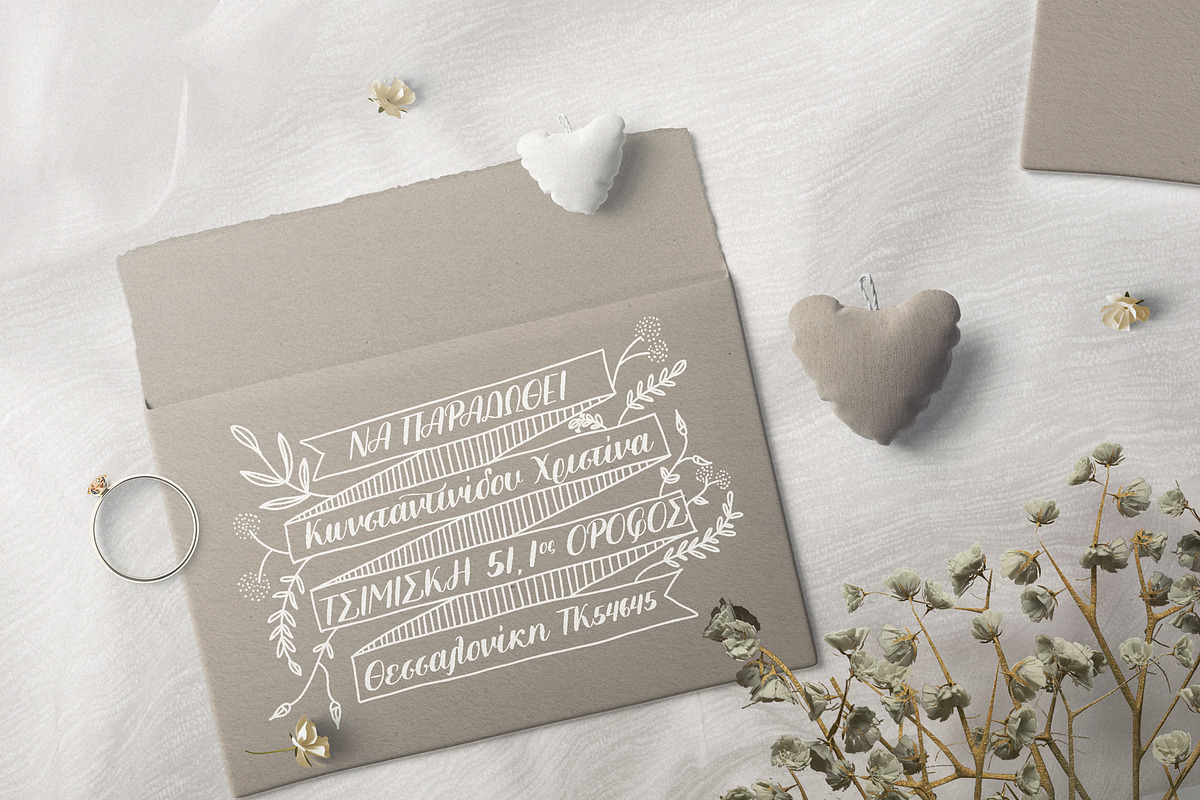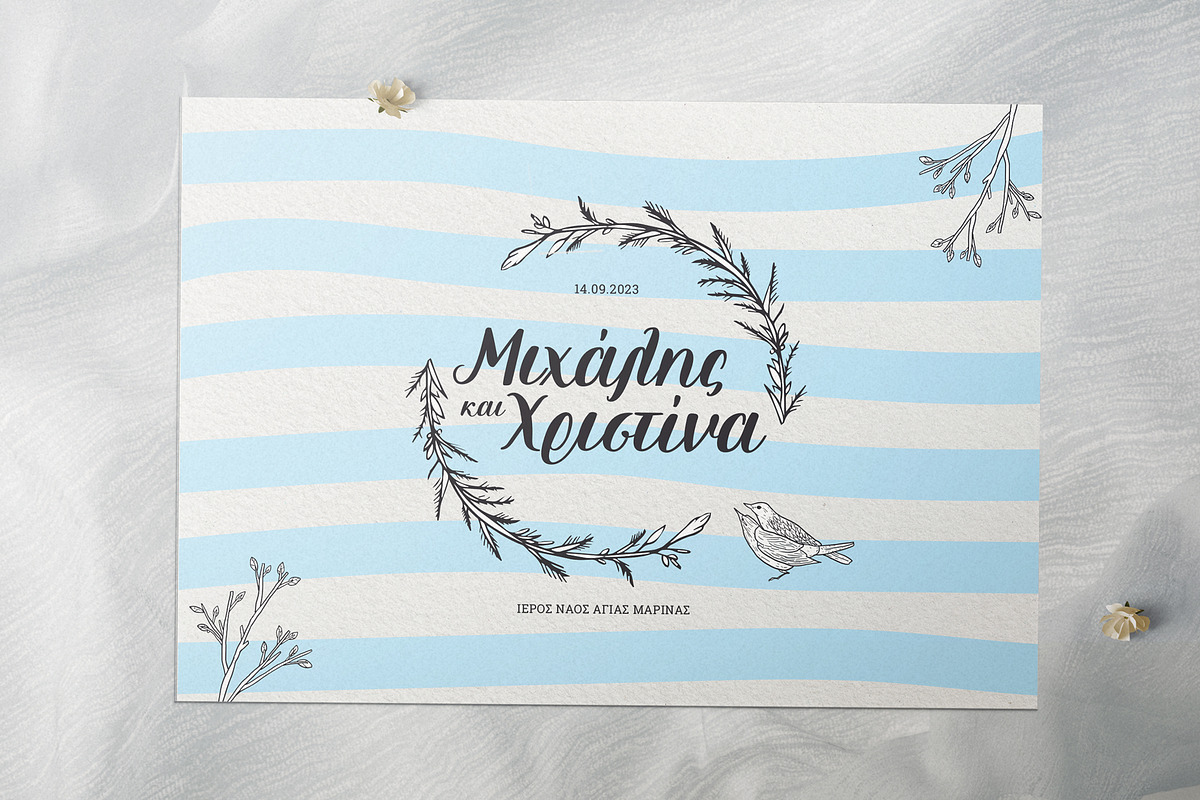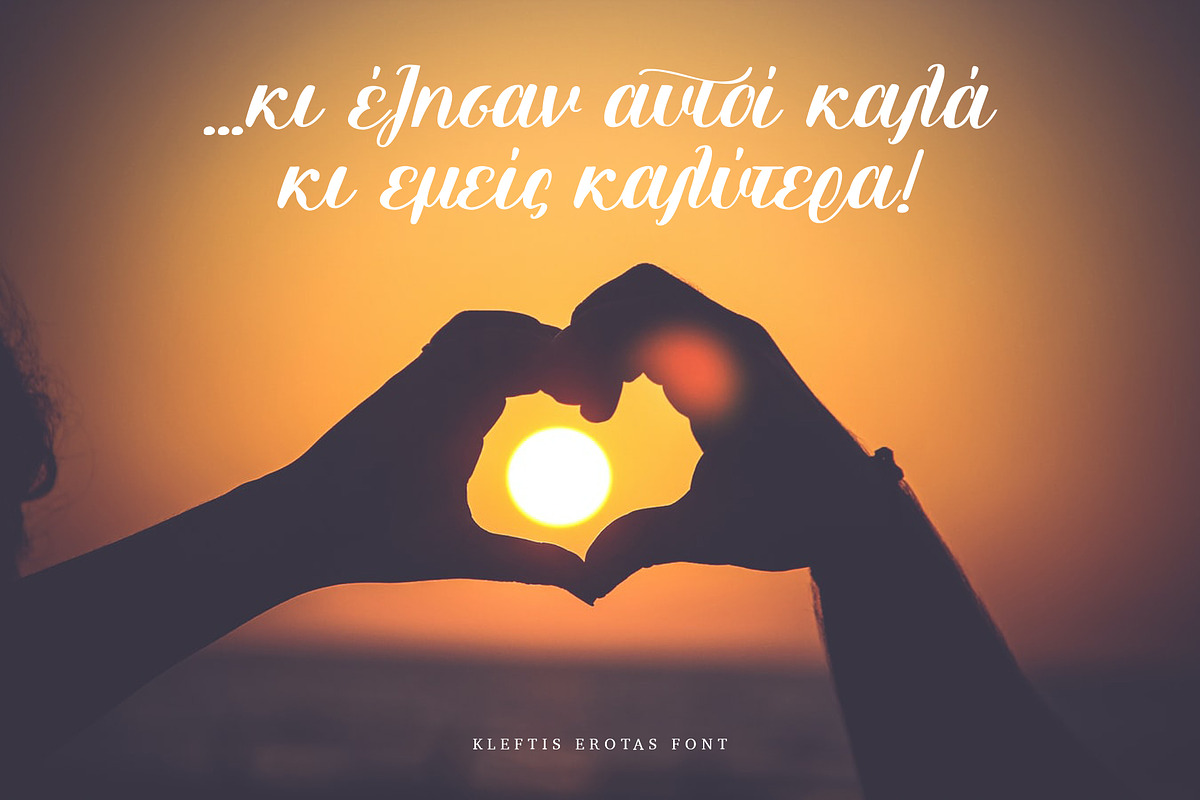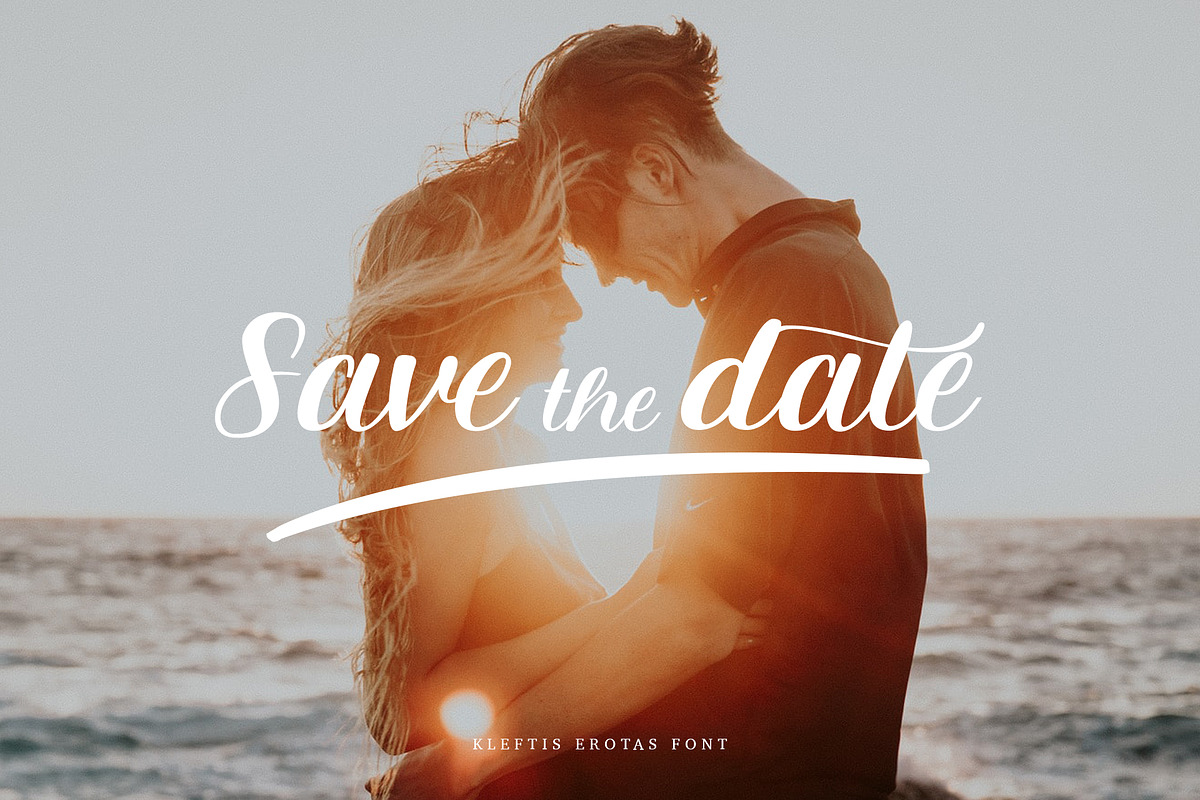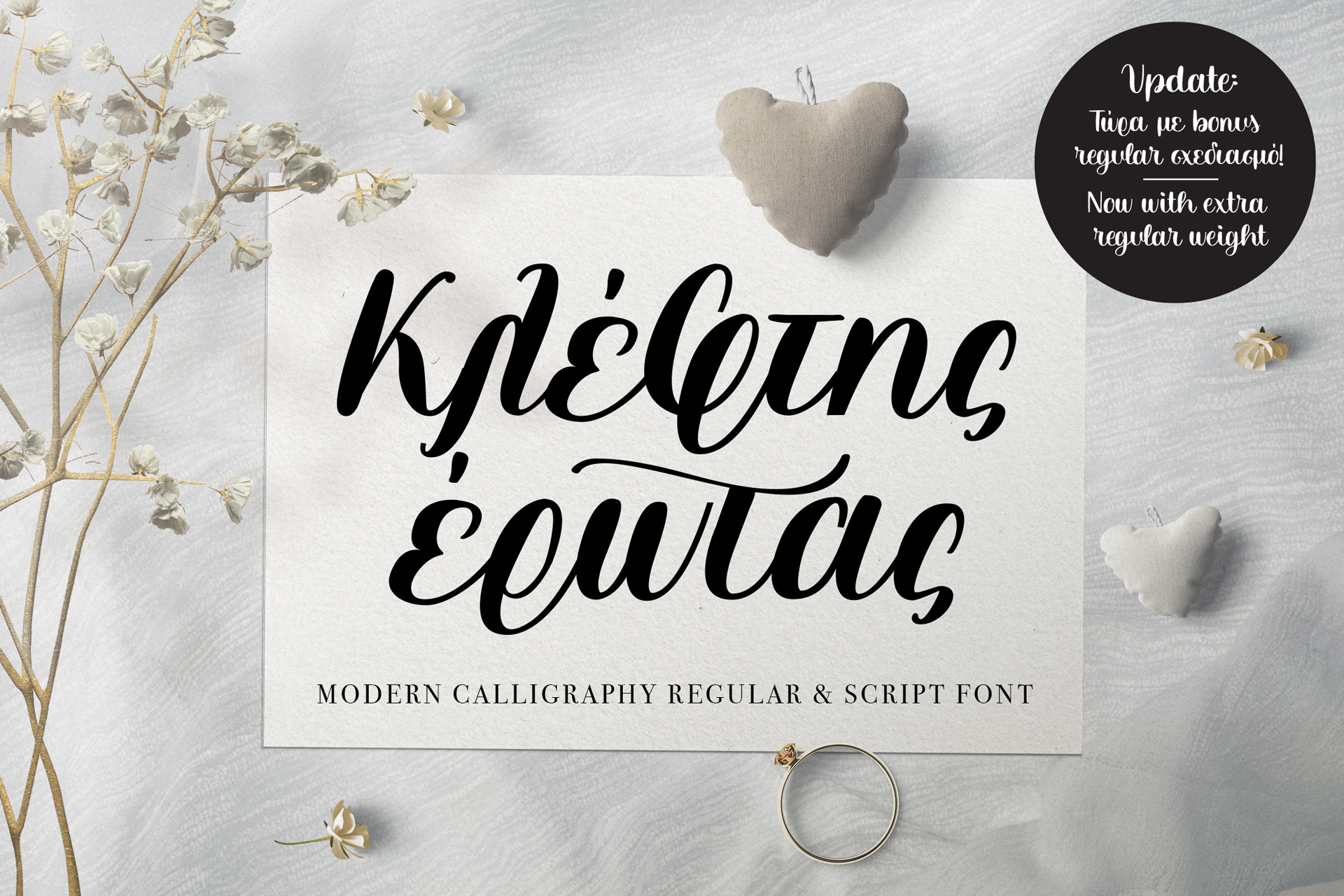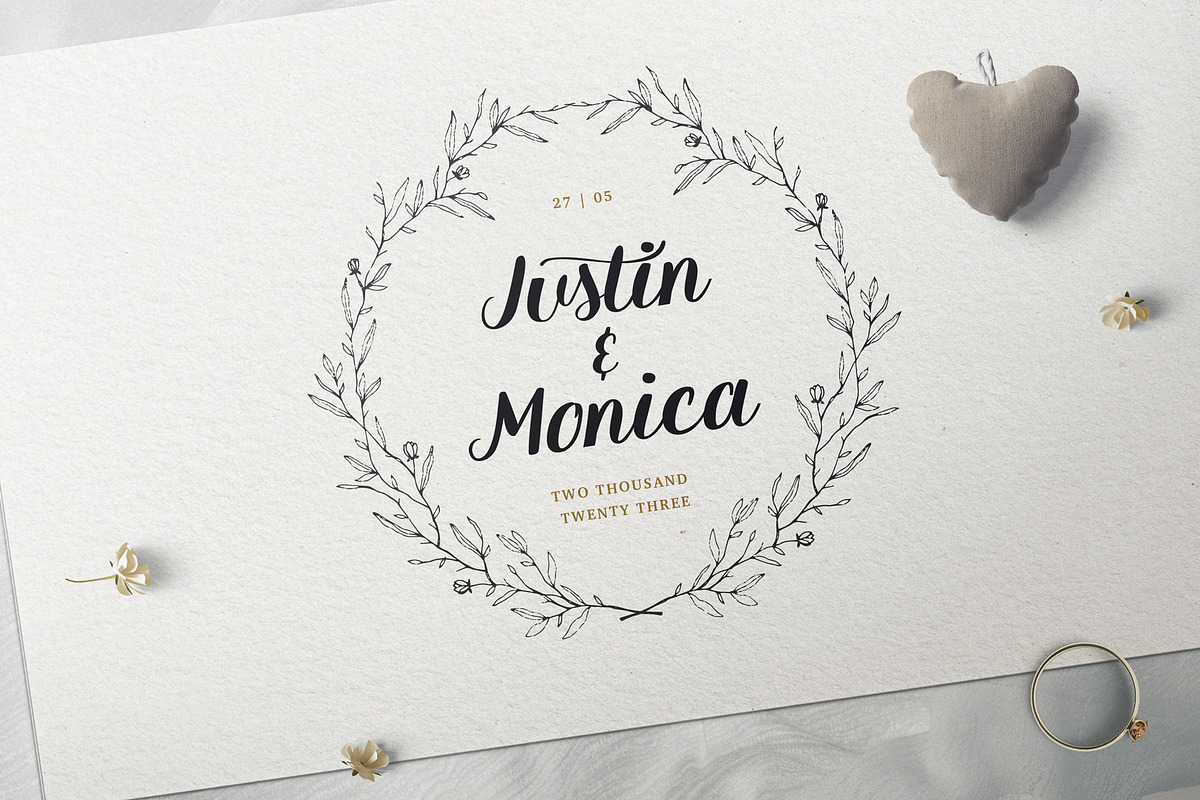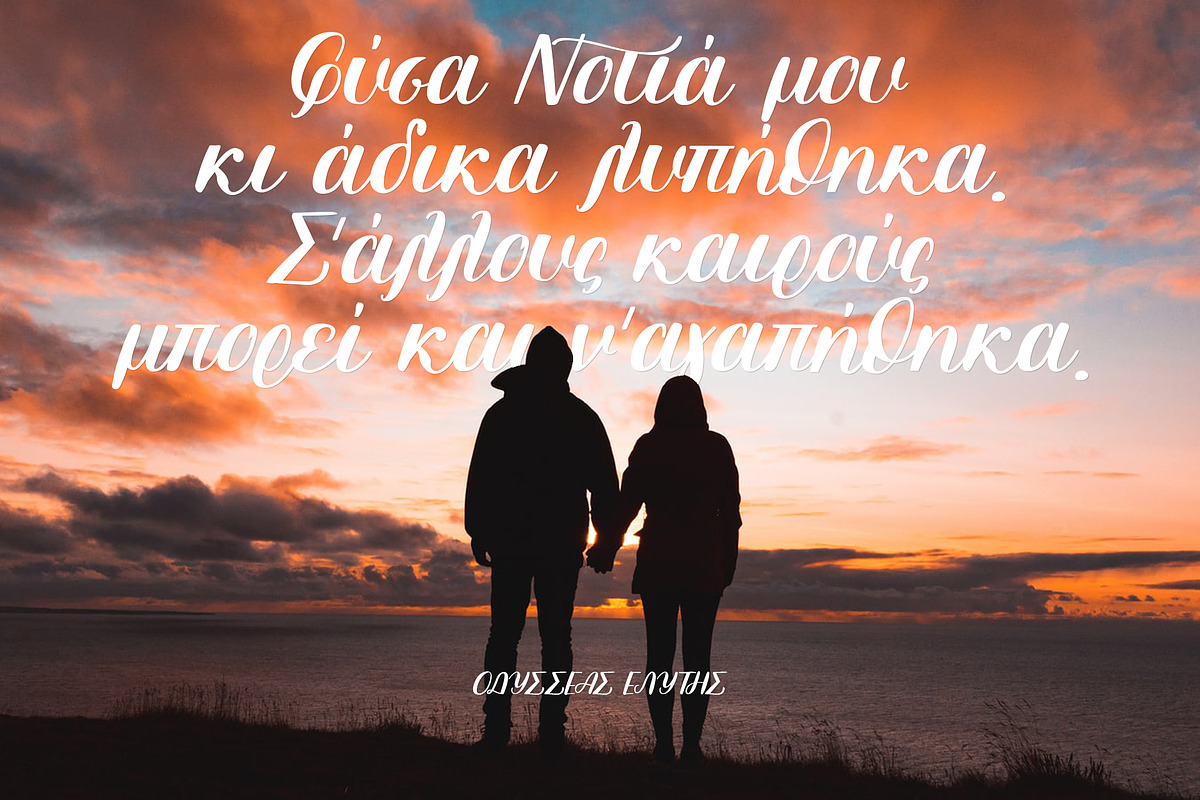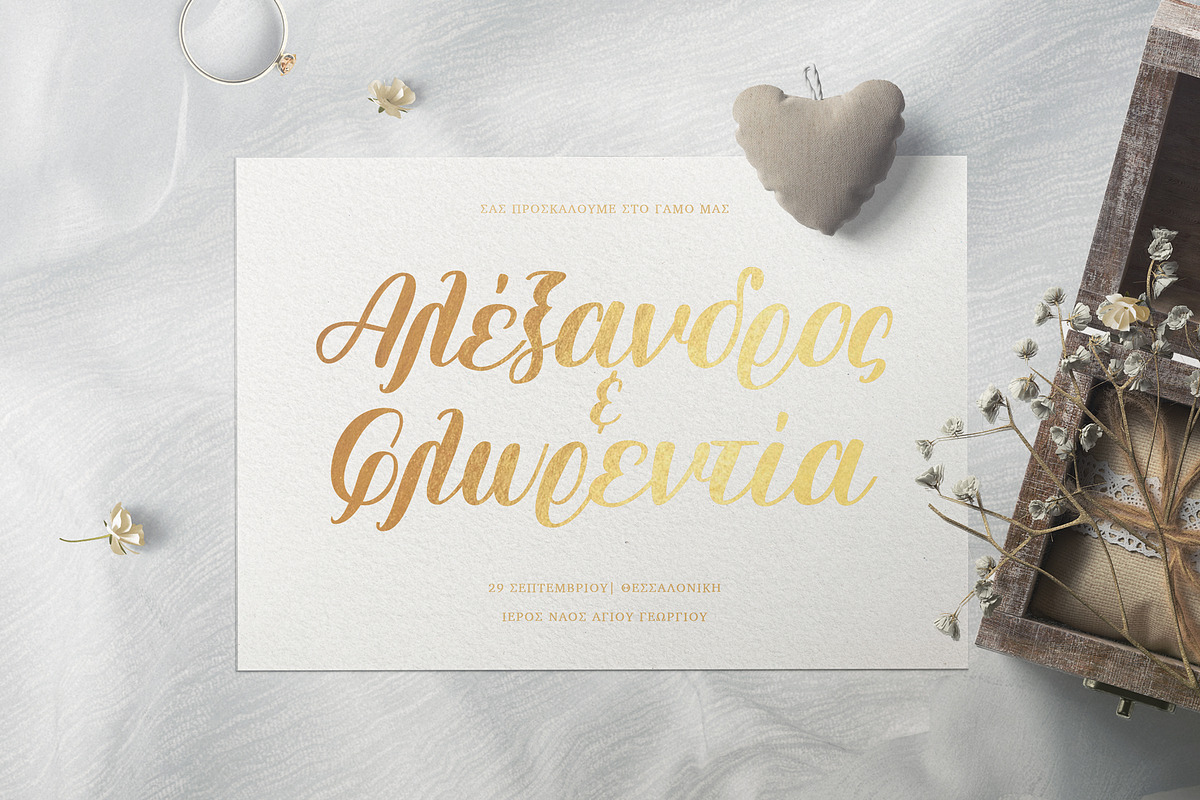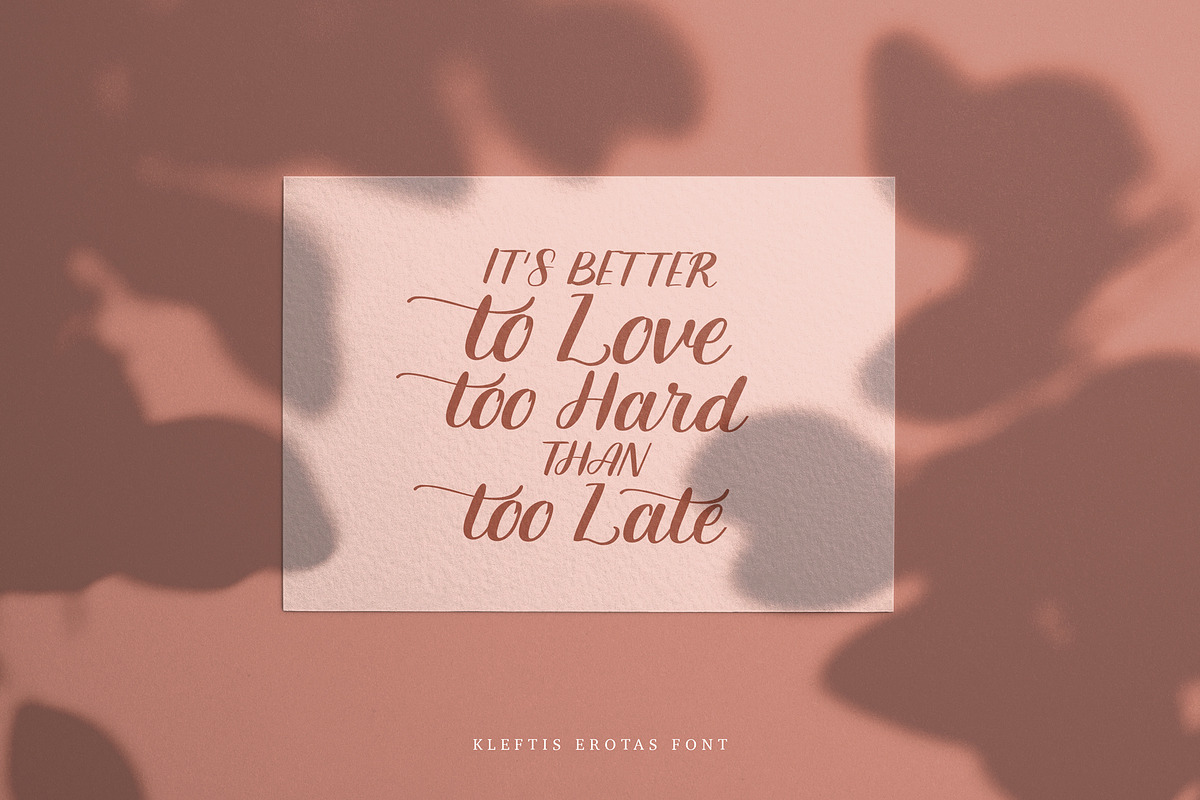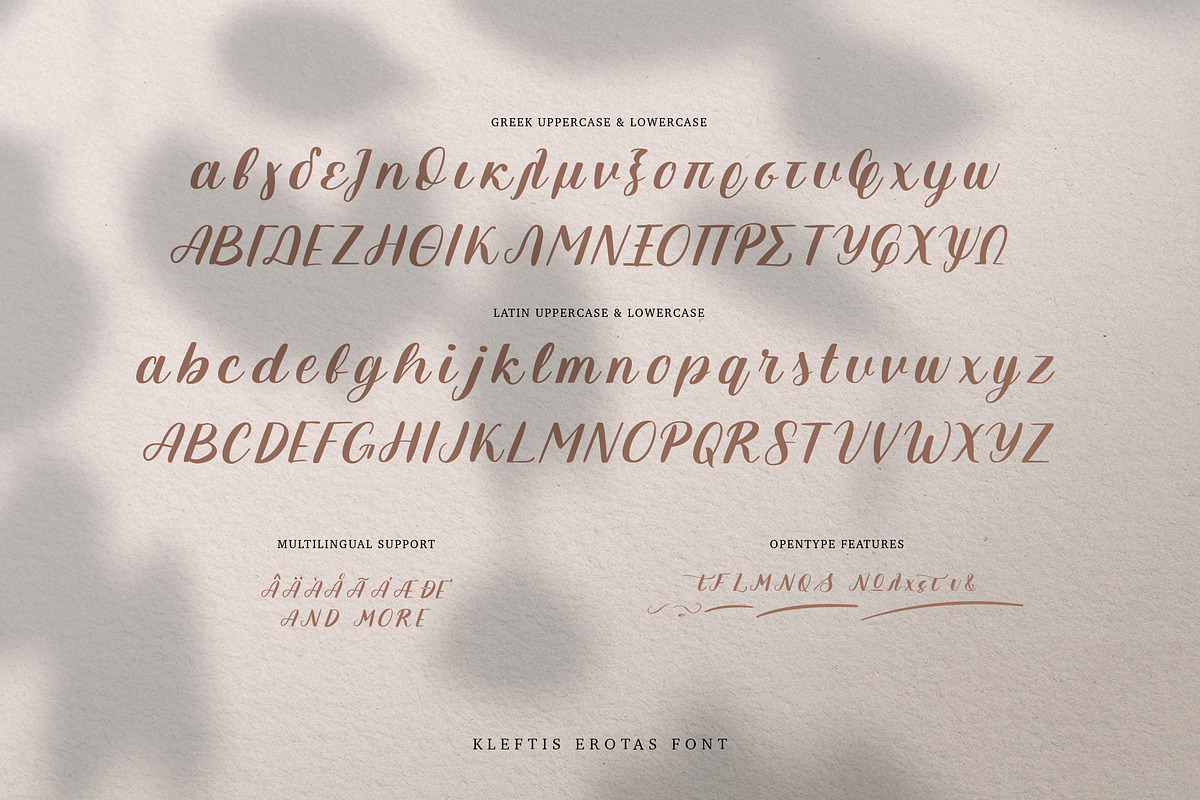
Kleftis Erotas Greek script font
UPDATE! NOW YOU CAN USE THE ALL NEW REGULAR VERSION IF YOU NEED MORE STRAIGHT LETTERS!
Introducing Kleftis Erotas, a hand-scripted modern brush calligraphy font. It is the ideal font to create stunning wedding invitations, book covers, instagram quotes and many more. Kleftis Erotas is taken from the Greek phrase that means love thief, eros. It's unique bold letters will give authenticity and style in your designs.
I created this font with Greek letters in mind and i made them with care, so they can be legible and clean. Kleftis Erotas also supports international languages as well. Opentype features such as ligatures & alternates are included.